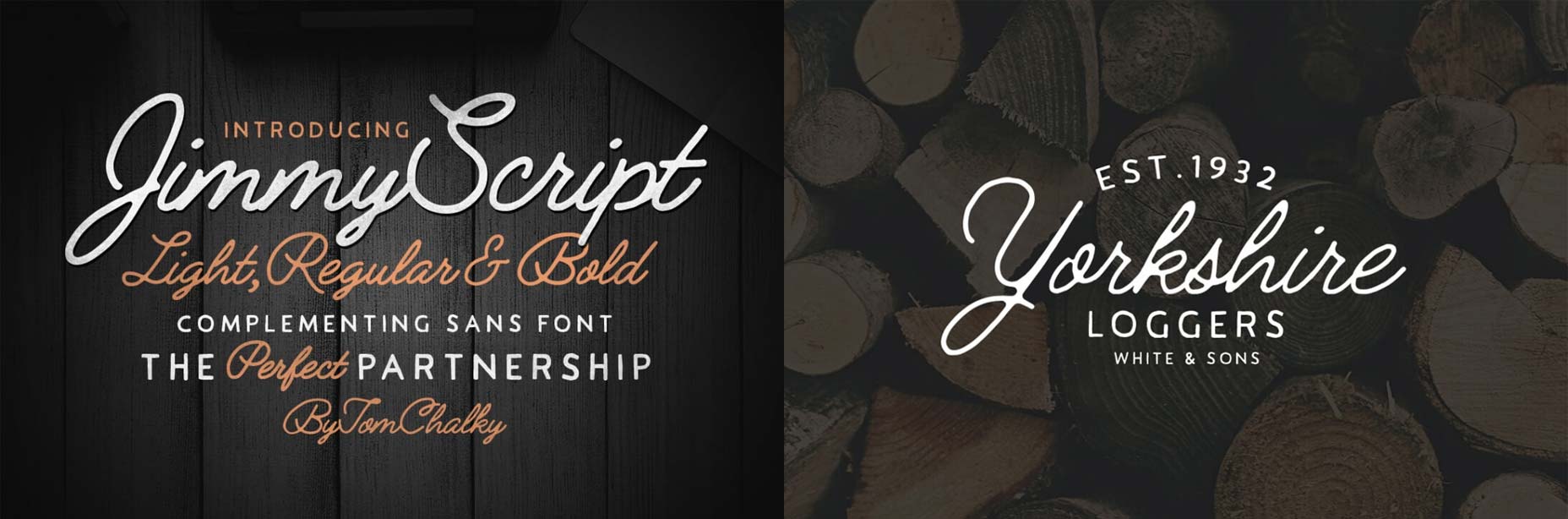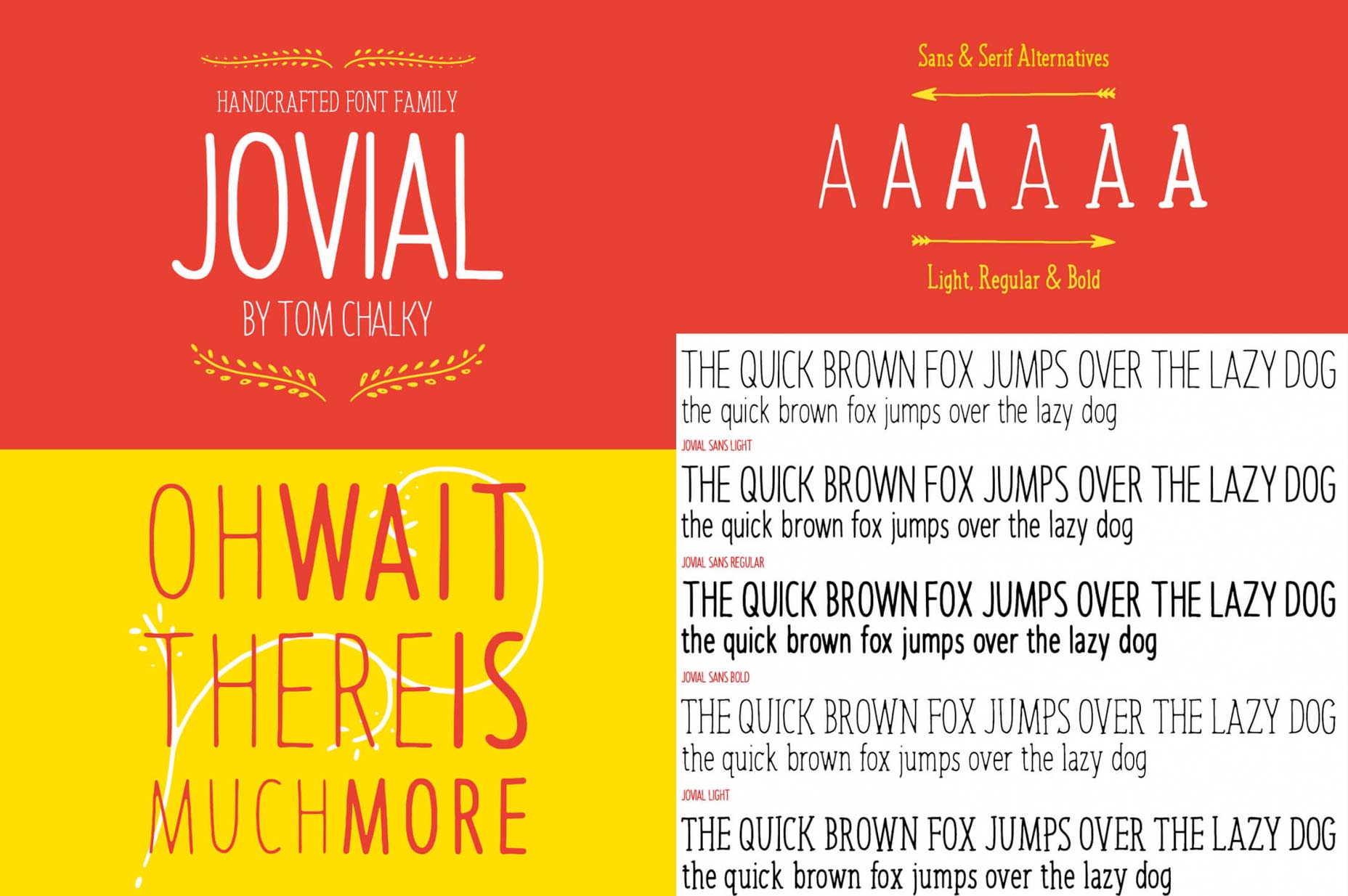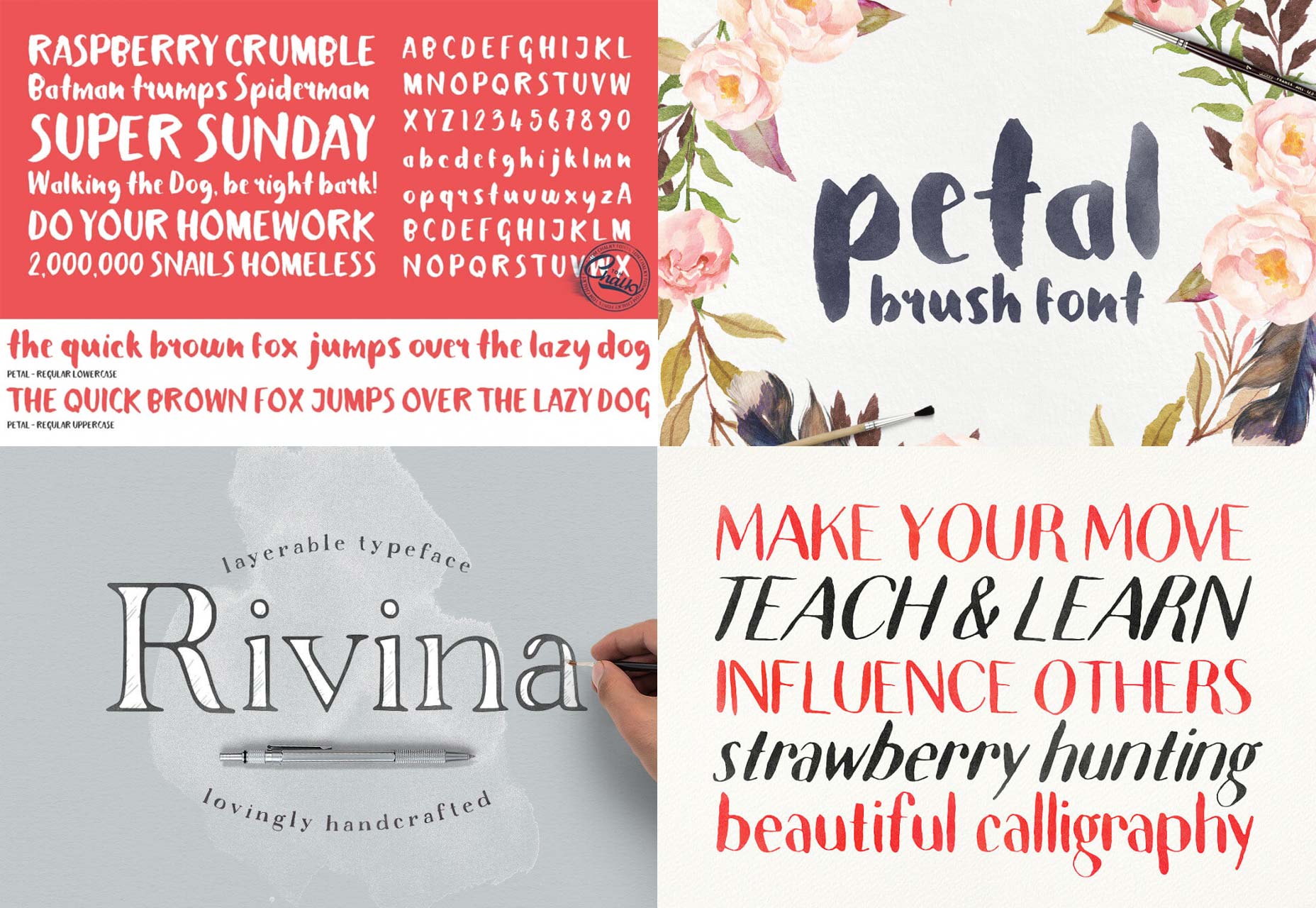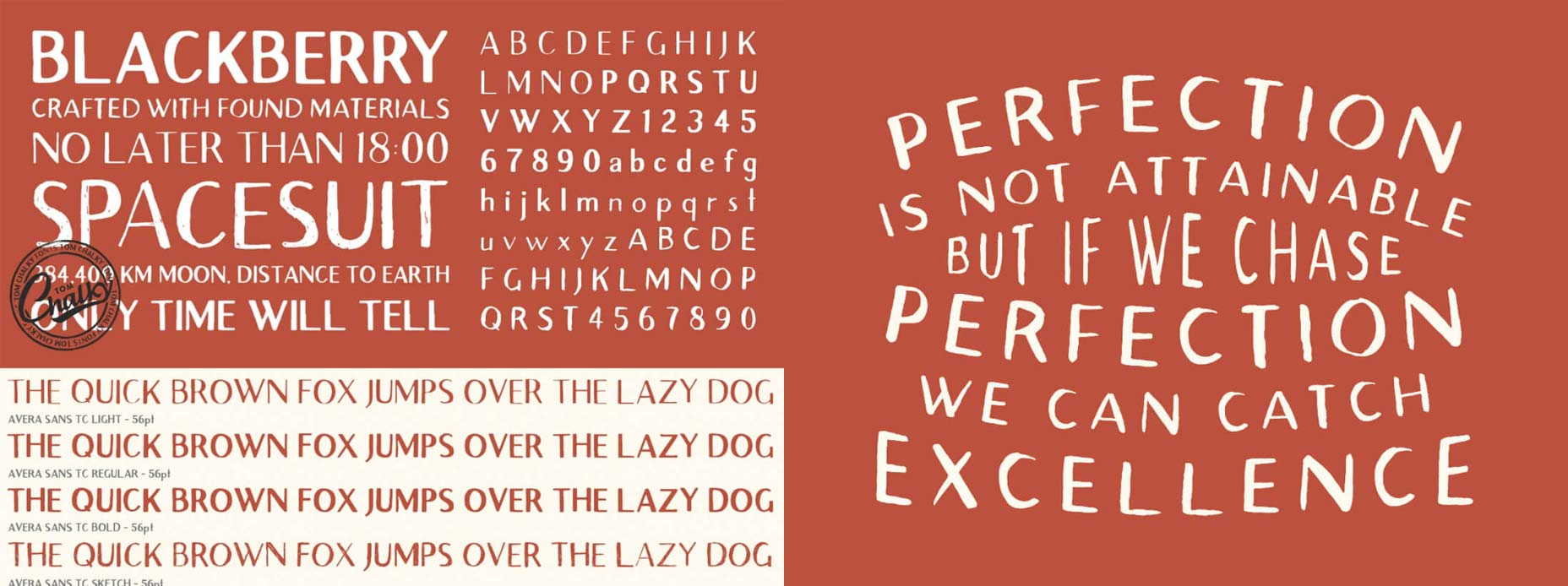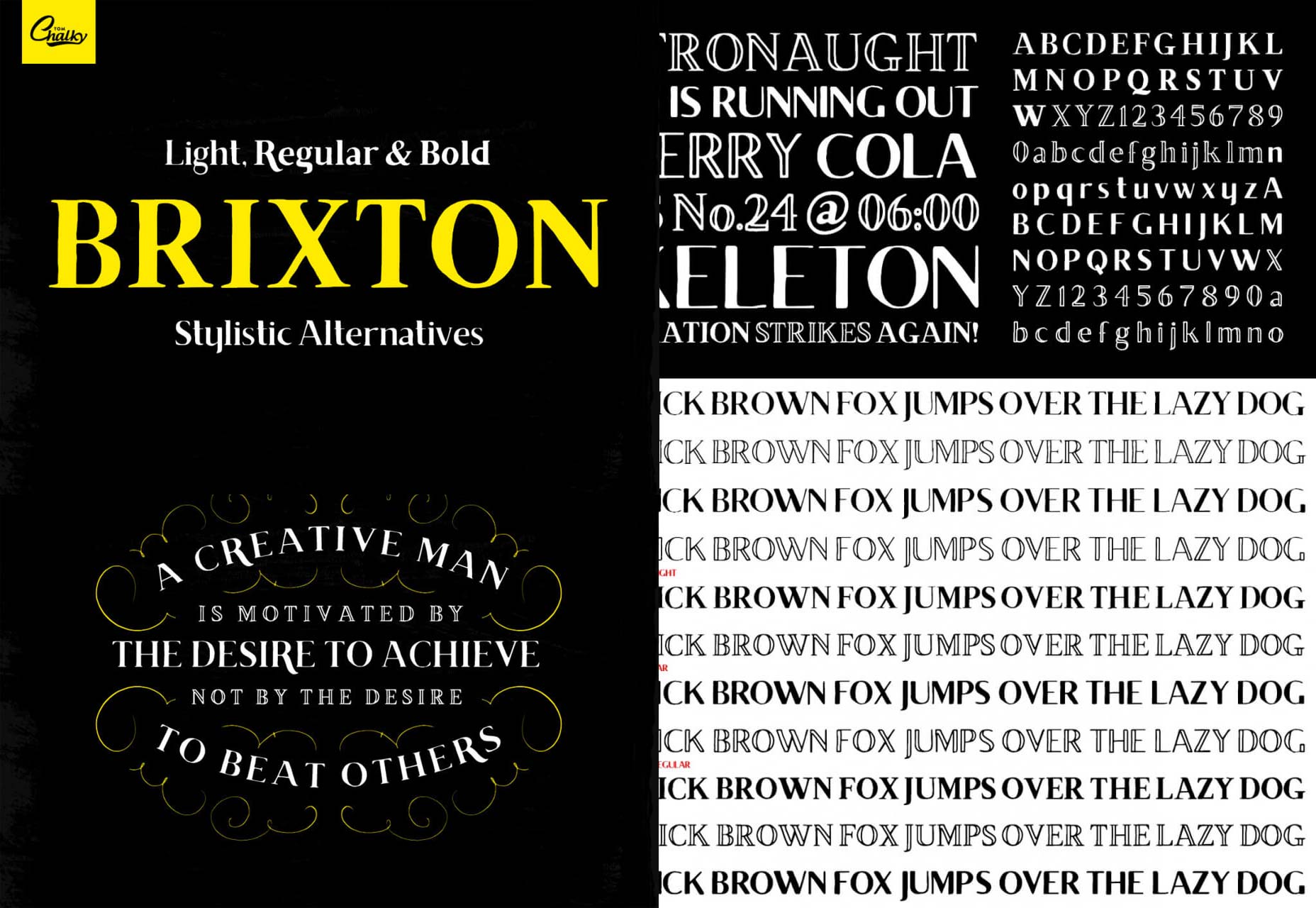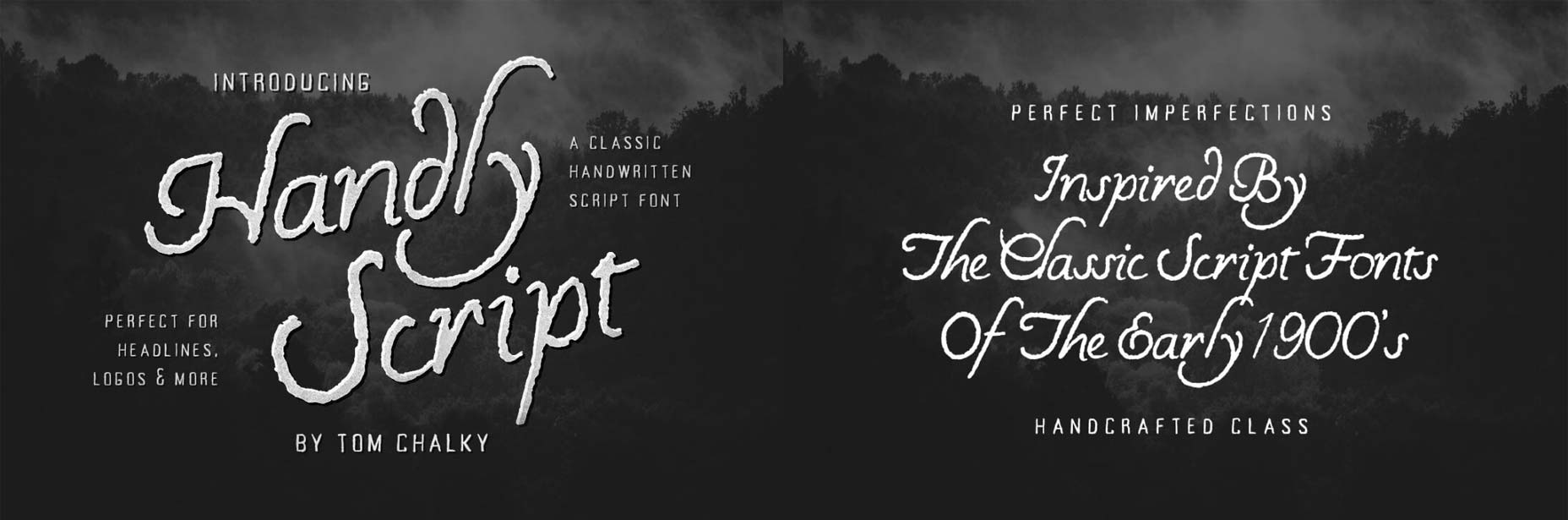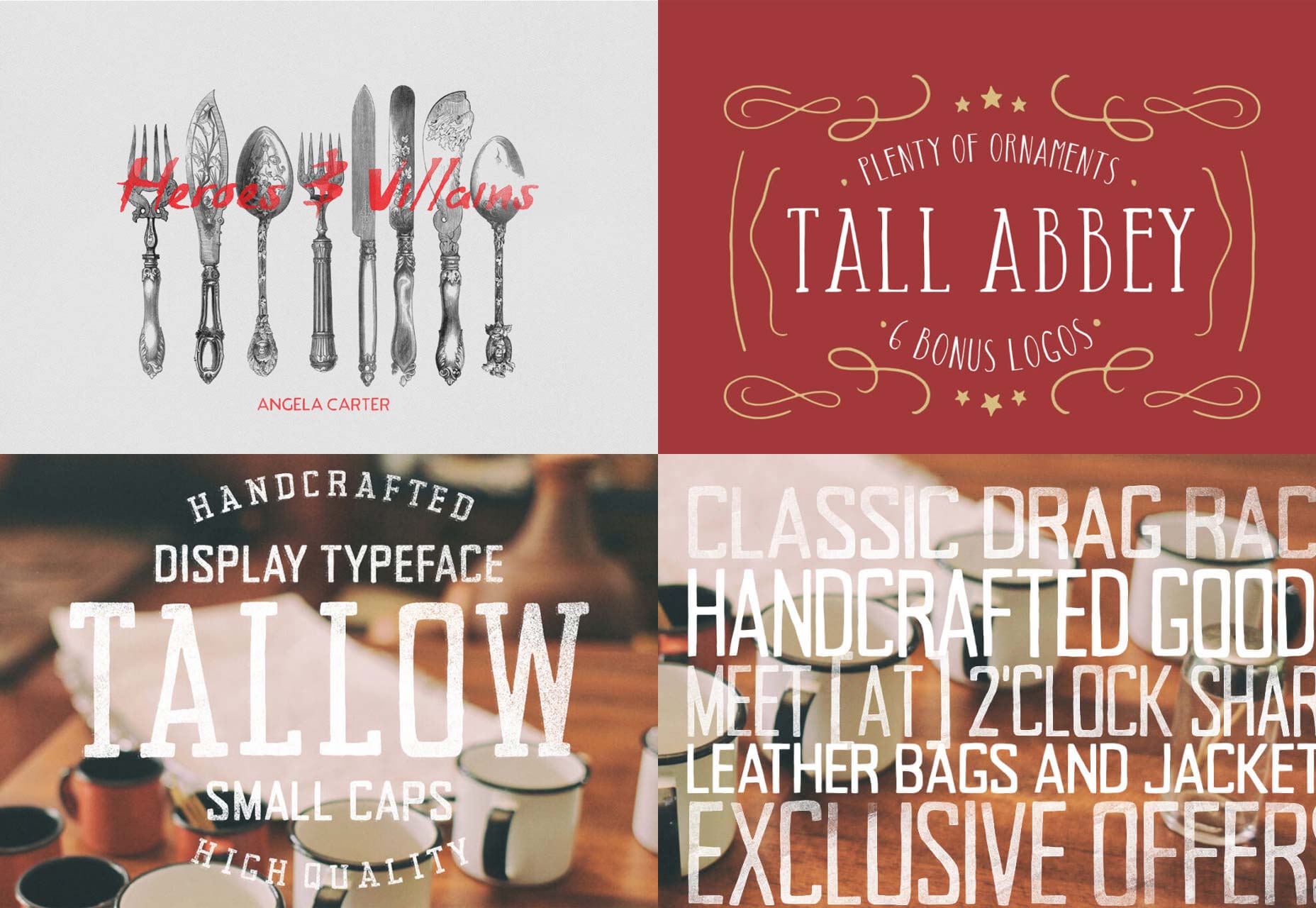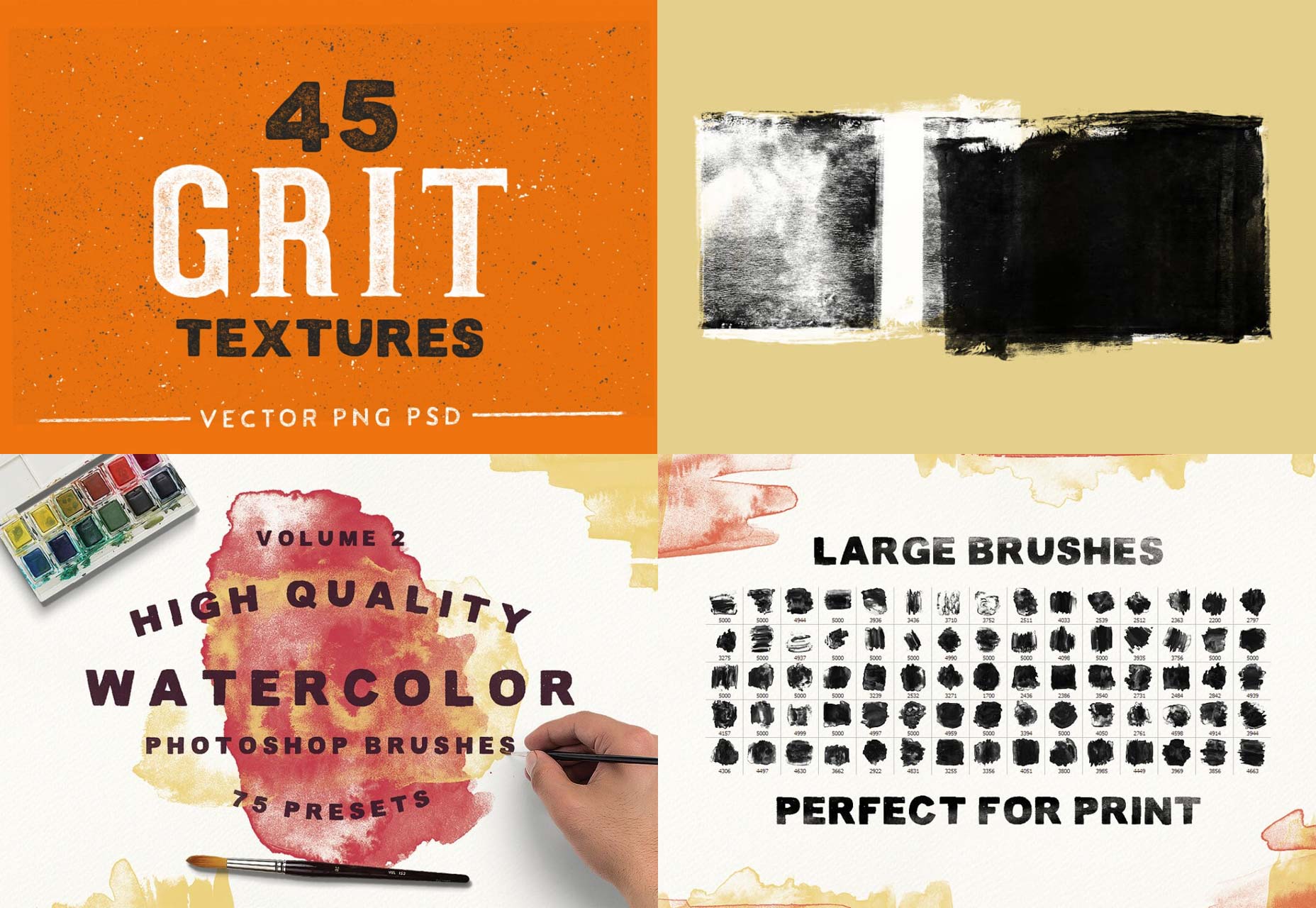
When it comes to fonts, you simply can’t have too many. Each typeface comes with its own distinct personality, and each one can be used to highlight different aspects of the business you’re designing for.
Tom’s work is not only professional, refined and skilled, but he can cover a range of styles – classic, whimsical, and more.—Geena Matuson
Largely based on the super-trendy chalk-lettering craze, the typefaces included are packed full of character. Every typeface is multilingual, so unlike many of the free fonts out there, they’re usable on professional sites.
Working as a professional graphic designer, it is a perfect all-round collection of textures, brushes and fonts I need day by day—Suzanne, SL Grafik
Highlights include the Jimmy Script family, featuring light, regular and bold weights; also featuring a complimentary sans-serif that works perfectly with the script.
The Jovial font family is a fun and friendly typeface with 3 weights of serif and 3 weights of sans-serif to choose from. Jovial comes with a ton of bonus design elements all carefully crafted to compliment the letterforms.
If you prefer brush faces to chalk lettering, then you’ll love Petal. Hand-crafted with a brush pen and then digitized, it is full of character and offers the chance to introduce a really personal feel to your designs.
The Rivina Font Collection gives you 9 individually hand-crafted fonts that can be layered to produce stunning graphic effects.
Of course that’s not all, you’ll also get the Avery Sans font-family, the Tallow font family, the Brixton font family, Handly Script, Rock Out Script, Rough Brush Script, Scribbling Tom, the Tall Abbey font family, the Truesketch family and its accompanying ornaments. And then there’s all those incredible textures, from watercolor brushes to print roller textures.
the watercolor brush pack is very high quality, brushes are large and hi-res with a wide variety of textures. His fonts across the board are beautifully done and unique—Robbi, Bobbledy Books